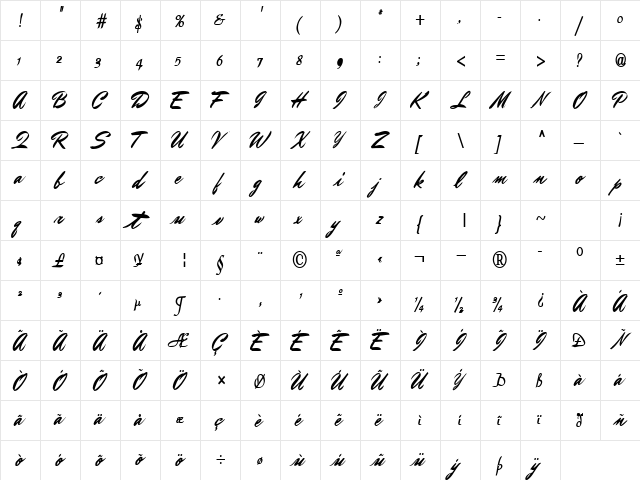
BrushMasterFont12 Regular
Design Context for BrushMasterFont12 Typeface
BrushMasterFont12 brings a calligraphic fluidity to the page — its connecting strokes and expressive curves give it an unmistakably human quality.
Font Pairing: Combine BrushMasterFont12 with a simple geometric sans for maximum contrast — the tension between flowing curves and clean structure is a classic typographic pairing.
Pro Tip: Use BrushMasterFont12 for short runs of text — names, titles, or taglines. Extended body copy in script faces tires the eye quickly.